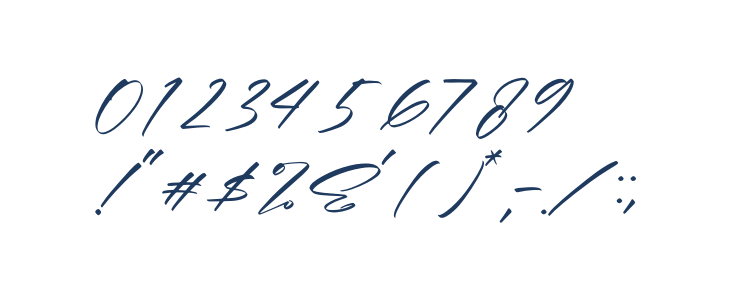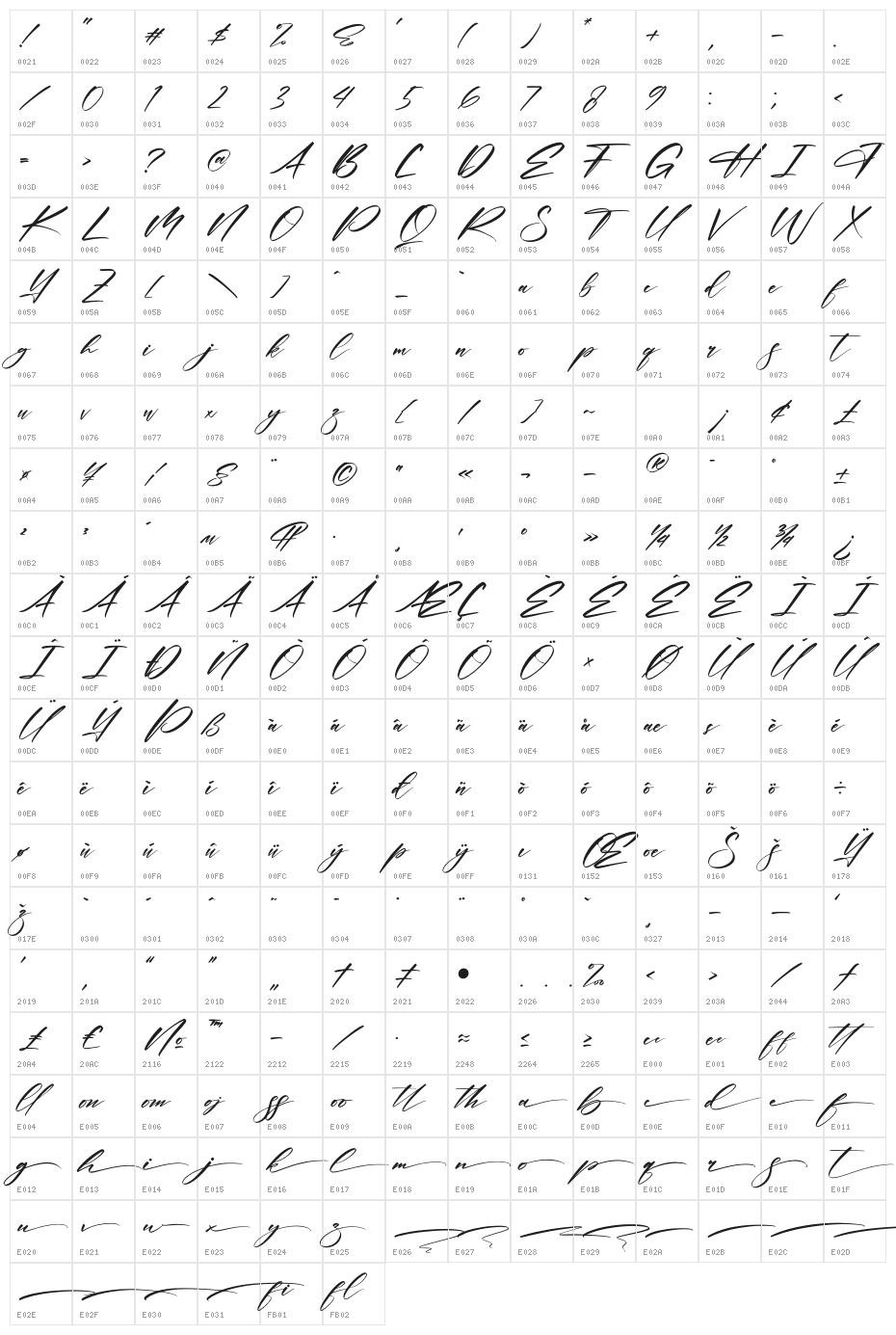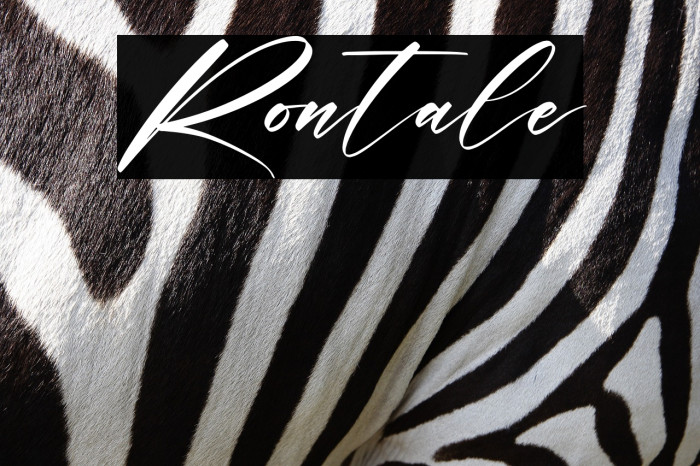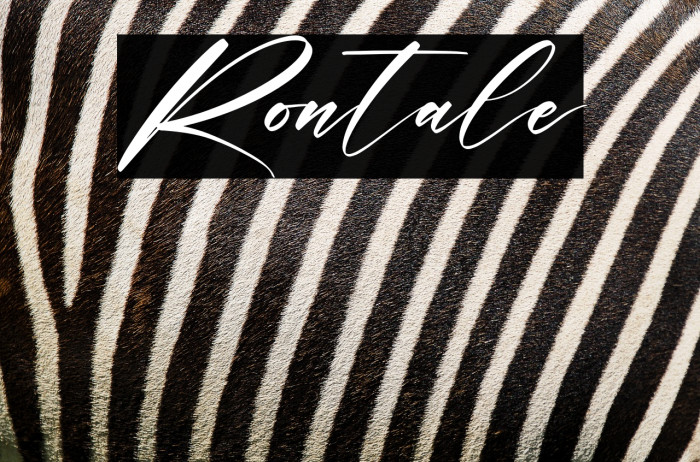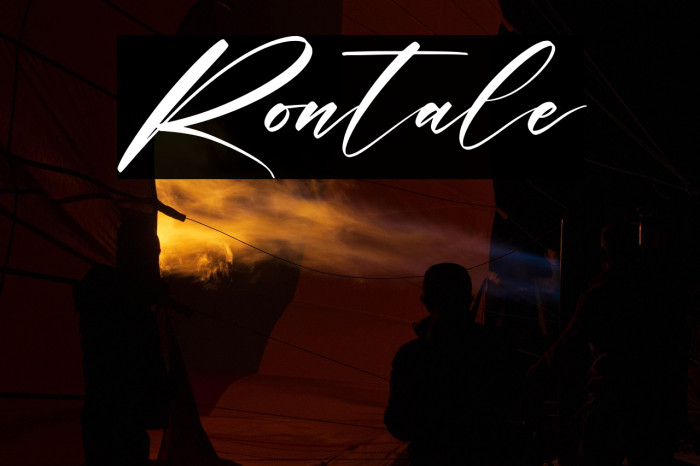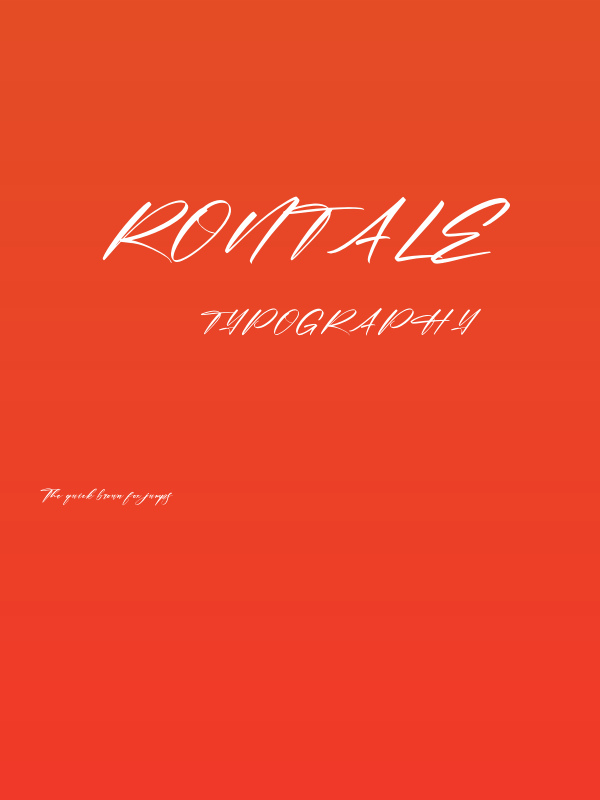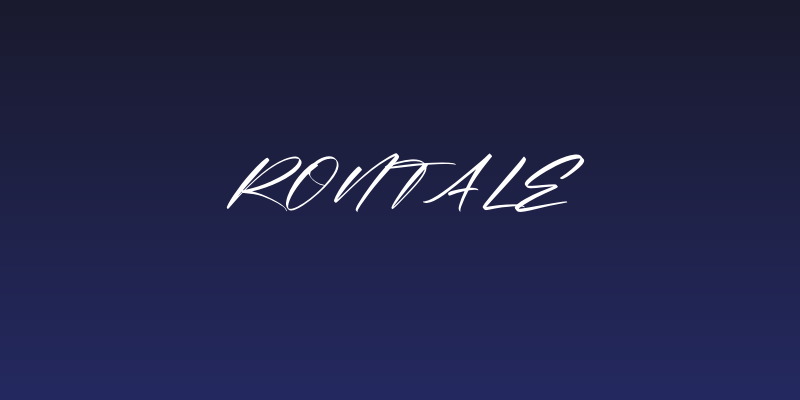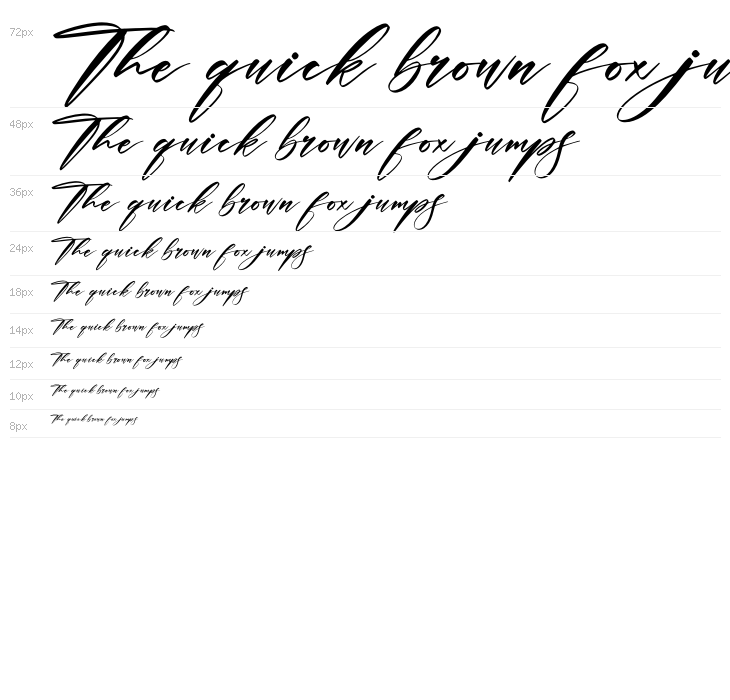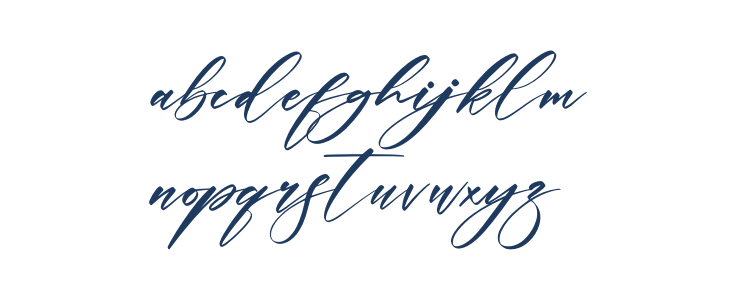
Rontale Font
Rontale Description
This font features an elegant and flowing script style, characterized by its smooth, cursive strokes and graceful curves. The uppercase letters are bold and dynamic, with a slight slant that adds a sense of motion and fluidity. The lowercase letters maintain a consistent style, with loops and swashes that enhance the font's decorative appeal. The numerals are distinct and maintain the same cursive style, ensuring readability while retaining the font's artistic flair. Special characters are thoughtfully designed, complementing the overall aesthetic. This font is perfect for projects that require a touch of sophistication and elegance.
| Overall Style | Elegant, Decorative |
| Use Case | Logos, Invitations, Decorative text |
| Proposed Projects | Ideal for wedding invitations, branding, logo design, and elegant stationery. |